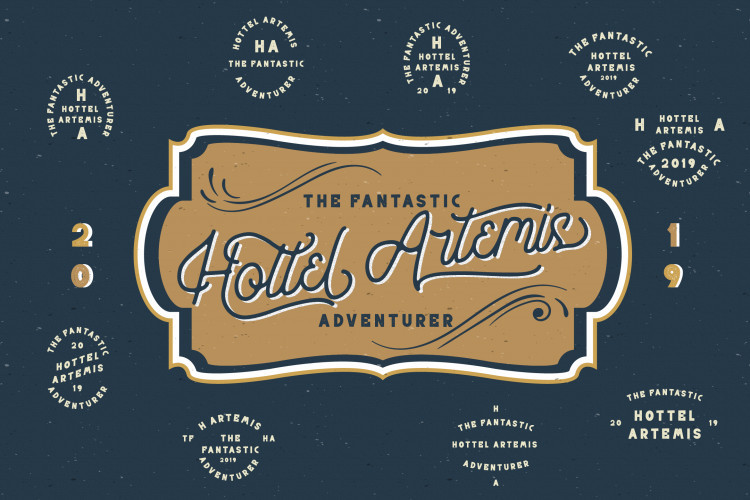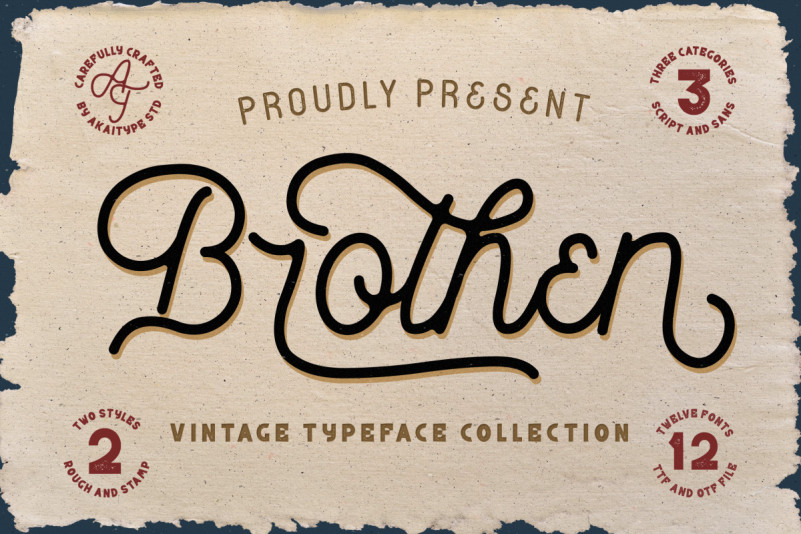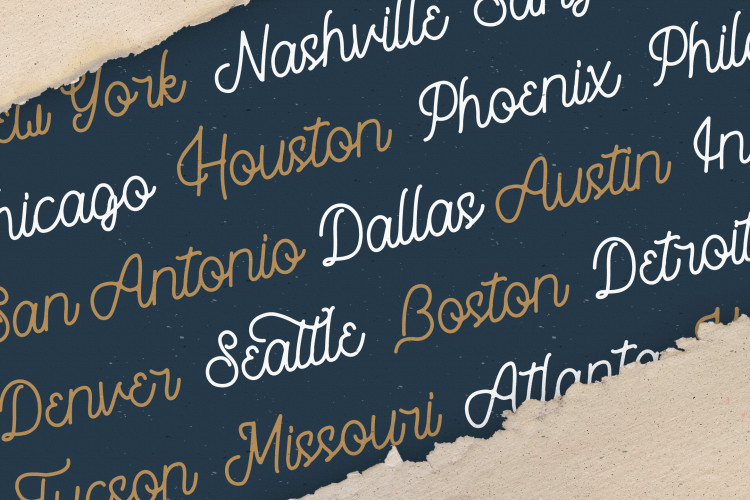
Brothen Vintage Font
Hello, introducing our new vintage typeface called “Brothen” , this font come with three style script and two sans serif.
Brothen script have a lot of alternate to make your projects look amazing.
Brothen perfect for branding, logo, invitation and more.